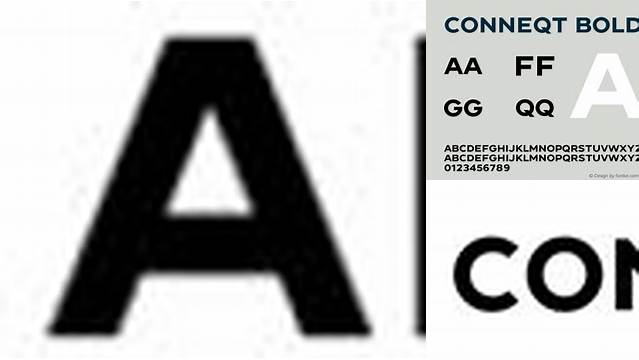
Hey guys! Are you on the hunt for a fantastic, attention-grabbing font that won't break the bank? Look no further! This guide is your one-stop shop for everything you need to know about Conneqt Bold, a powerful and versatile font that's perfect for a wide range of design projects. We'll dive deep into how to get your hands on the Conneqt Bold font free download, explore its various applications, and give you some tips and tricks to make the most of this awesome typeface. So, let's jump right in and unlock the potential of Conneqt Bold!
Exploring the Conneqt Bold Font Family: Variations and Styles
Great news, guys! Conneqt Bold often comes in a family, not just a single style. This means you might find different weights and variations to suit a range of design needs. Knowing the available styles is key to getting the most out of this versatile font. Let's check it out:
- Bold vs. Regular: At its heart, Conneqt Bold is, well, bold! But, does it also offer a regular or light version? This allows for varied use. Use the bold for headlines and the regular for body text.
- Italics: Does it come with an italic version? Italics add a touch of flair and emphasis. Perfect for quotes or callouts!
- Condensed or Extended: Sometimes, you might encounter condensed or extended versions. Condensed fonts are great for tight spaces, while extended fonts add a sense of spaciousness. Really helpful when you need to squeeze text into small spaces.
- Weight Variations: Within the bold family, you may find different weights like Extra Bold or Heavy. These offer even more visual impact. Always look to see what weights are available, it will help you in the long run.
Check the font's documentation or the download page to see the complete range of styles. Having access to multiple styles greatly expands your design possibilities. You can create visual hierarchy, emphasize certain elements, and make your designs pop. Think about the different combinations you can create: a bold headline with regular body text, an italicized subhead, or even an extra-bold call-to-action. The more options you have, the better!
Conneqt Bold in Action: Designing with the Font
Now that you've got the Conneqt Bold font free download and know about the variations, let's get to the fun part: using it! Here's how to incorporate Conneqt Bold into your designs like a pro. We're going to see the different design areas that Conneqt Bold can do in.
- Logos and Branding: The strong presence of Conneqt Bold makes it a superb choice for logos. It conveys confidence and authority, ideal for brands that want to project a powerful image. Think about how the font's boldness will translate to different sizes and applications (business cards, websites, etc.).
- Headlines and Titles: This is where Conneqt Bold truly shines. Use it for headlines in your blog posts, website pages, or marketing materials. The impact of the font instantly grabs attention. Make sure to consider the context. Will it complement the other design elements?
- Posters and Flyers: Designing posters and flyers with this font is like a breeze. The font’s readability and visual punch make it perfect for conveying information quickly. The bold style helps ensure your message is seen from afar. Experiment with different color combinations and layouts.
Conneqt Bold: The Perfect Font for Your Next Project